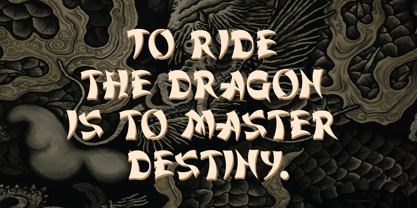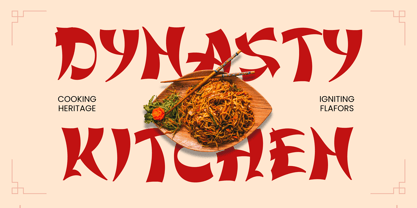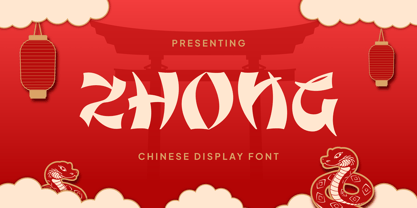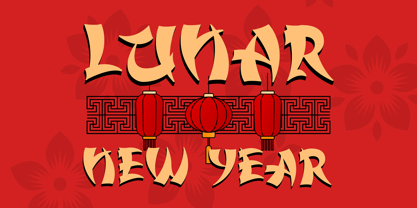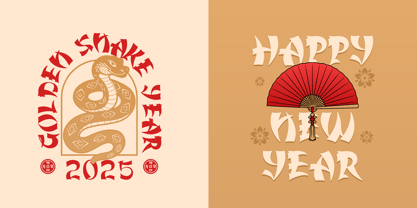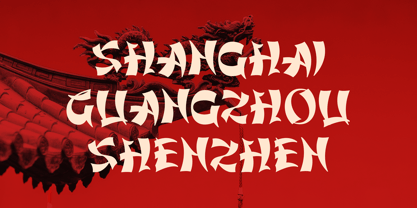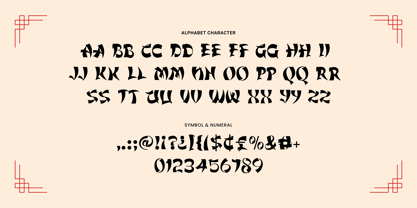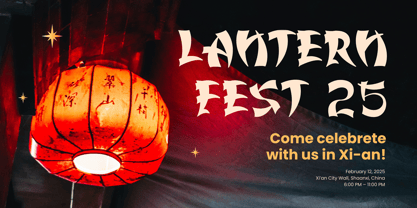
Zhong
by Imoodev
The Zhong Font Family was designed by Aulia Savira Putri and published by Imoodev. Zhong contains 1 styles. More about this family
Meet Zhong, a powerful and striking display font that brings a modern, edgy feel to traditional asian aesthetics. Inspired by the bold, angular strokes of calligraphy, this all caps font is designed to be impactful and eye catching. Each letter features sharp, chiseled terminals and dynamic flares, giving your text a strong, stylized look that is full of character. The thick, confident letterforms are perfect for making a statement, whether used for restaurant branding or festive event poster. Zhong is incredibly versatile for any project needing a touch of Eastern flair, including: - Cultural Events: Perfect for Lunar New Year or festival branding. - Branding: Ideal for logos, restaurant menus, and food packaging. - Headlines: Creates bold titles for posters, banner, travel magazines, or websites.
Designers: Aulia Savira Putri
Foundry: Imoodev